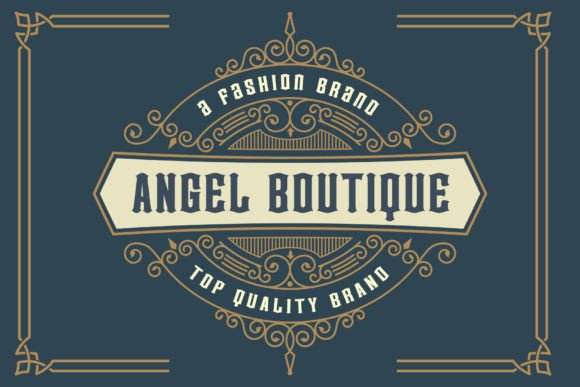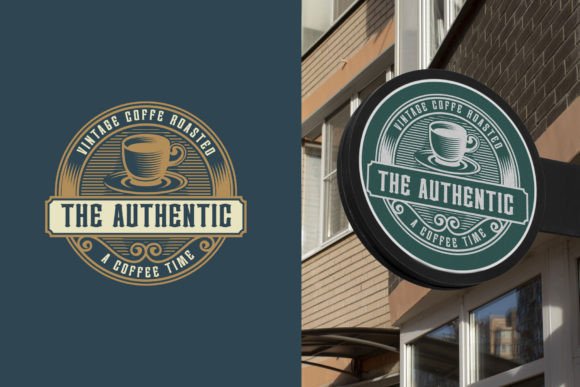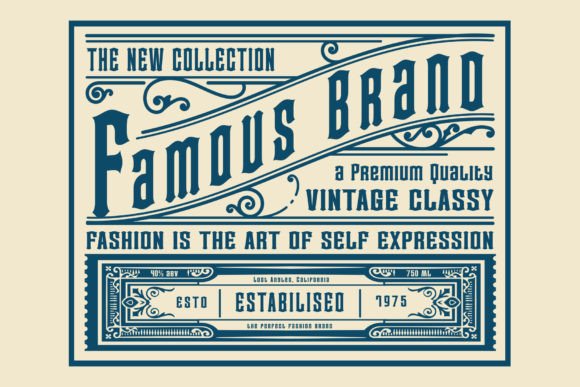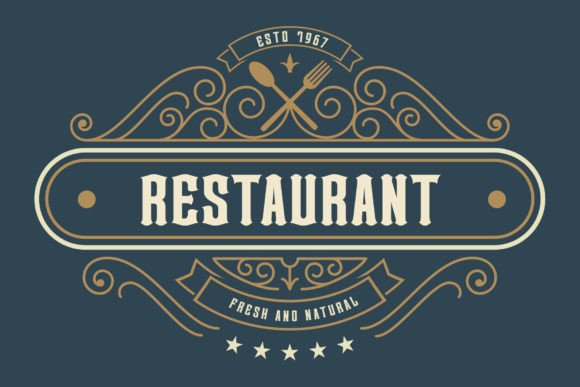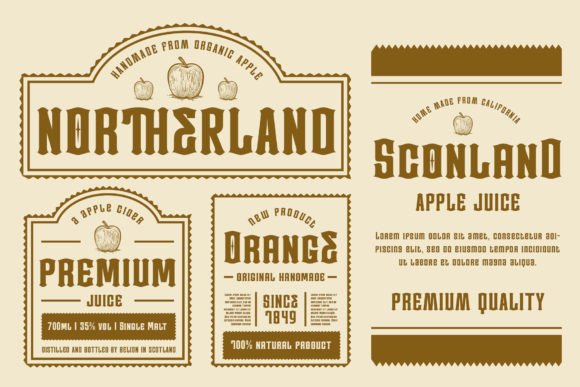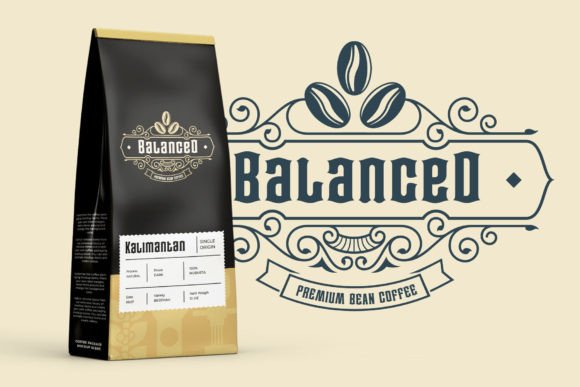
Introduction to Richerson Font
Richerson is a vintage typeface with sophisticated bold and embrace elegancy visual design.
It is a perfect choice for any creative endeavor, chic, lifestyle design such as logos, advertisements, watermark on photography, stationery, branding project, display and magazine, invitation, corporate brand, product design, label, business project and many other project with retro touch .